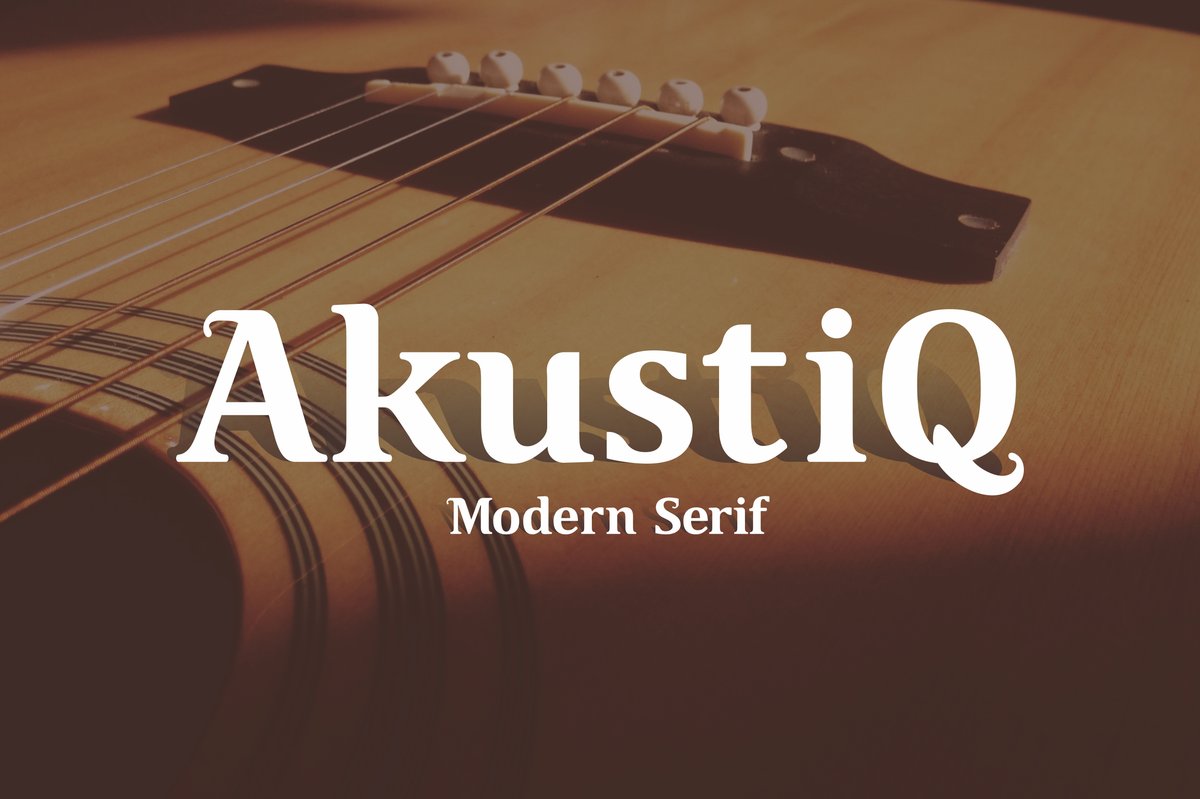
The Perfect Blend of Classic and Modern
Have you ever been browsing through a vintage bookstore and stumbled upon an old novel with a stunning, yet timeless font? That’s exactly the kind of moment that inspired the creation of the Akustiq Font – a bold, modern day serif that combines the classic look and feel of traditional typography with a fresh, modern twist.
The Akustiq Font is designed to bring a touch of sophistication and elegance to any design project. Whether you’re a graphic designer, a writer, or a business owner looking to rebrand your company, this versatile font is sure to make a lasting impression. With its unique blend of classic and modern elements, the Akustiq Font is the perfect addition to any design arsenal.
Akustiq Font Key Features
- Font Family: Akustiq Font is a unique, high-quality font family that offers a range of styles and weights.
- Unique Characteristics: Akustiq Font features a unique blend of modern and classic elements, with subtle nuances that add depth and character to text.
- Character Count: Includes a comprehensive set of characters, including Latin, Cyrillic, and Greek alphabets, as well as punctuation and symbols.
Akustiq Font Review
I’ve had the chance to work with the Akustiq font, and here’s my honest take.
- Unique aesthetic: Akustiq brings a distinct, modern feel to any design project. Its unique letterforms and subtle nuances make it stand out from more traditional fonts.
- High legibility: Despite its modern look, Akustiq remains highly legible, making it suitable for a wide range of applications, from body text to headlines.
- Strong typographic control: The font’s design allows for excellent typographic control, enabling designers to create visually appealing compositions with ease.
- Limited font weights: Akustiq’s weight range is somewhat limited, which might restrict its use in projects requiring a broader range of font weights.
- Not ideal for small text sizes: While Akustiq is highly legible, it’s not the best choice for small text sizes, as its letterforms can become somewhat difficult to read.
Overall, Akustiq is a solid choice for designers seeking a unique, modern font with high legibility. While it has some limitations, its strengths make it a valuable addition to any design project.
Akustiq Font Practical Application Guide
Tips for Getting the Most Out of Akustiq Font
Experiment with different font sizes, colors, and alignments to achieve the desired effect.
Use Akustiq Font in conjunction with other design elements to create a cohesive look.
Take advantage of the font’s unique characteristics to add visual interest to your designs.
Akustiq Font is ideal for:
– Creative projects that require a unique and stylish font.
– Branding materials such as logos, business cards, and brochures.
– Digital designs such as social media graphics, infographics, and presentations.
Alternatives to Akustiq Font
Akustiq Font is a unique, modern sans-serif font known for its geometric shapes and clean lines. However, there are other fonts that offer similar characteristics, making them suitable alternatives for designers. Here are a few options:
Montserrat is a popular sans-serif font designed by Julieta Ulanovsky. It’s inspired by the urban landscape of Buenos Aires and features geometric shapes and clean lines, making it a great alternative to Akustiq Font. Montserrat is ideal for use in headings, titles, and body text where a modern and sleek feel is desired.
Montserrat compares to Akustiq Font in its geometric shapes and clean lines, but it has a slightly more condensed feel and a stronger emphasis on vertical strokes.
Yes, the Akustiq Font is fully editable and customizable. You can adjust font size, color, and style to suit your design needs. Additionally, you can use font editors or software like Adobe Illustrator to customize the font further.
Q: Is the Akustiq Font available in different weights and styles?
Yes, the Akustiq Font family includes multiple weights and styles, including light, regular, bold, and italic. This allows you to choose the perfect font for your design project, whether it’s a bold headline or a subtle body text.